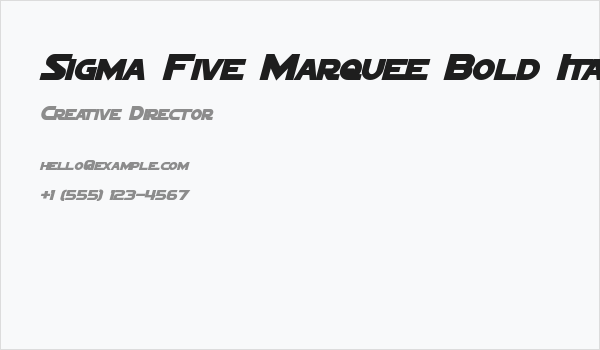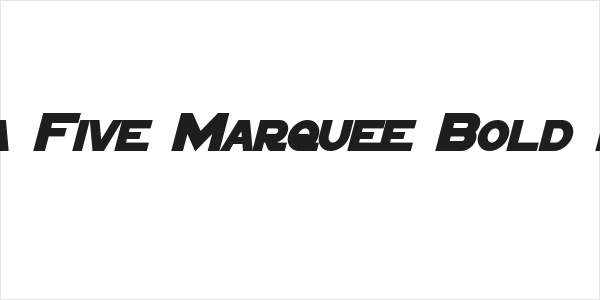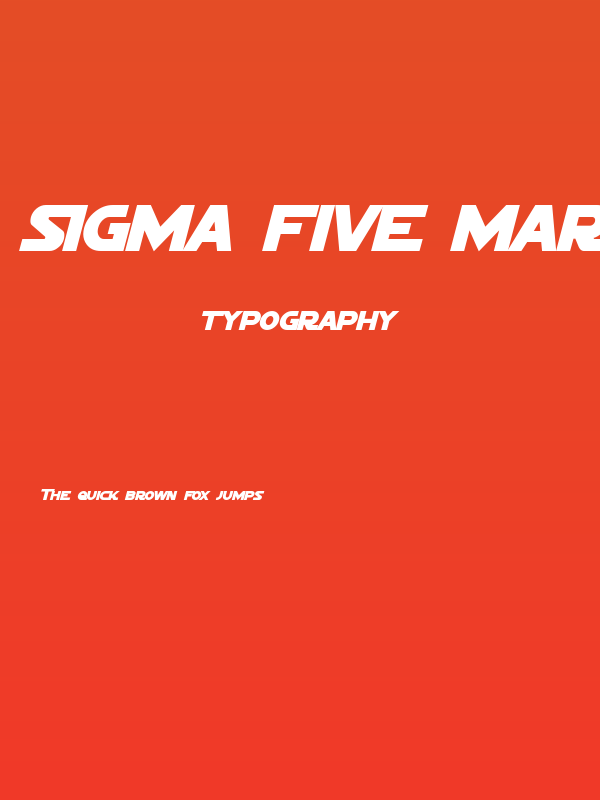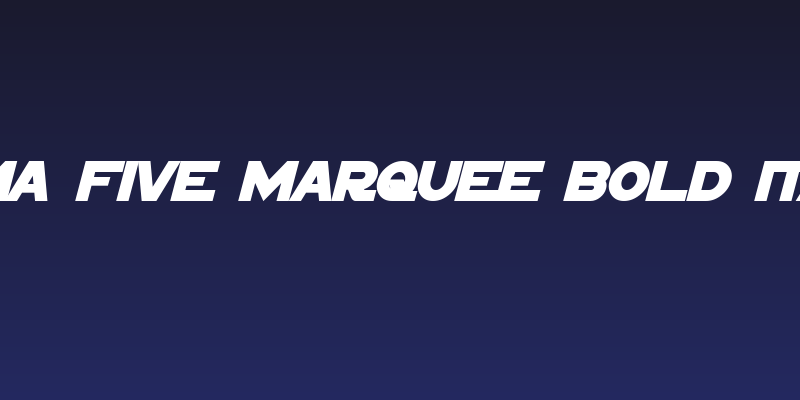
Sigma Five Marquee Bold Italic Font
Sigma Five Marquee Bold Italic Description
This font features a bold and italicized style with a futuristic and dynamic appearance. The characters are wide and have a strong presence, making them ideal for attention-grabbing headlines. The angular and geometric design gives it a modern and sleek look, while the italic slant adds a sense of motion and energy. The font includes uppercase letters, numbers, and a variety of special characters, all maintaining a consistent bold weight and italic angle. The overall design is cohesive and visually striking, suitable for projects that require a bold and modern aesthetic.
| Proposed Projects | Ideal for sci-fi themed designs, technology branding, sports team logos, and dynamic posters. |